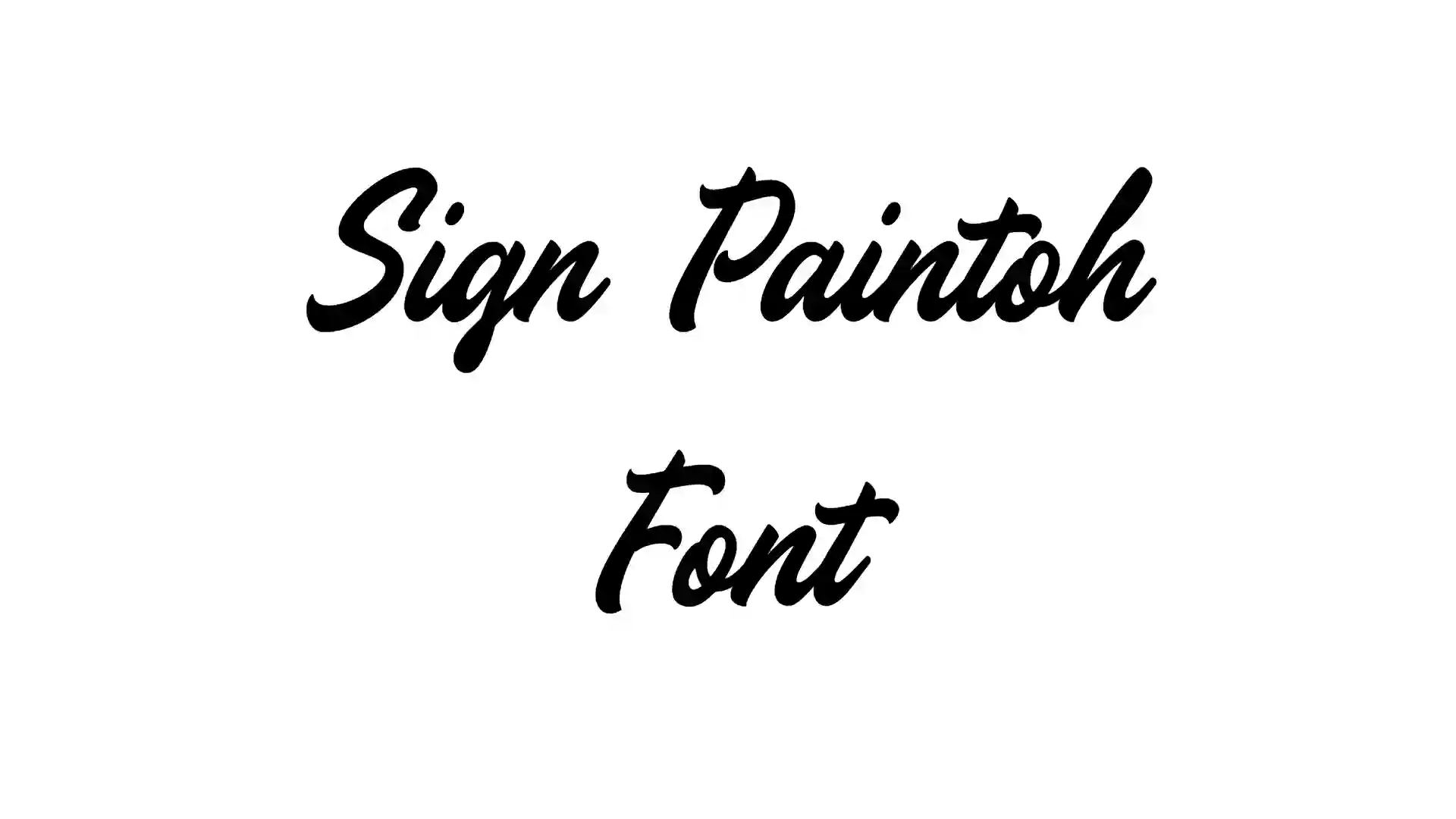
Sign Paintoh Font
Sign Paintoh is a script font made by Letterhend Studio. It has that hand-lettered, flowing feel people look for when regular type seems too stiff. It's a free download, and you can try it with your own text in the preview above first.
What You Can Type With Sign Paintoh
Sign Paintoh covers the full alphabet in upper and lowercase, plus all ten numbers, so you can set names, dates and prices without switching fonts. Common punctuation such as &, !, ? and @ is included as well. It doesn't include accented letters such as é or ñ, which makes it an English-only font.
Where Sign Paintoh Works Best
Sign Paintoh is a natural fit for wedding invitations, logos and signature-style headings. Script fonts read best in short bursts, so keep it to names, titles and one-line quotes. Skip all caps: script capitals are drawn to start a word, not to fill one.
Does Sign Paintoh support accented letters?
No. Sign Paintoh has no accented letters such as é, ñ or ü, so it's best for English text.